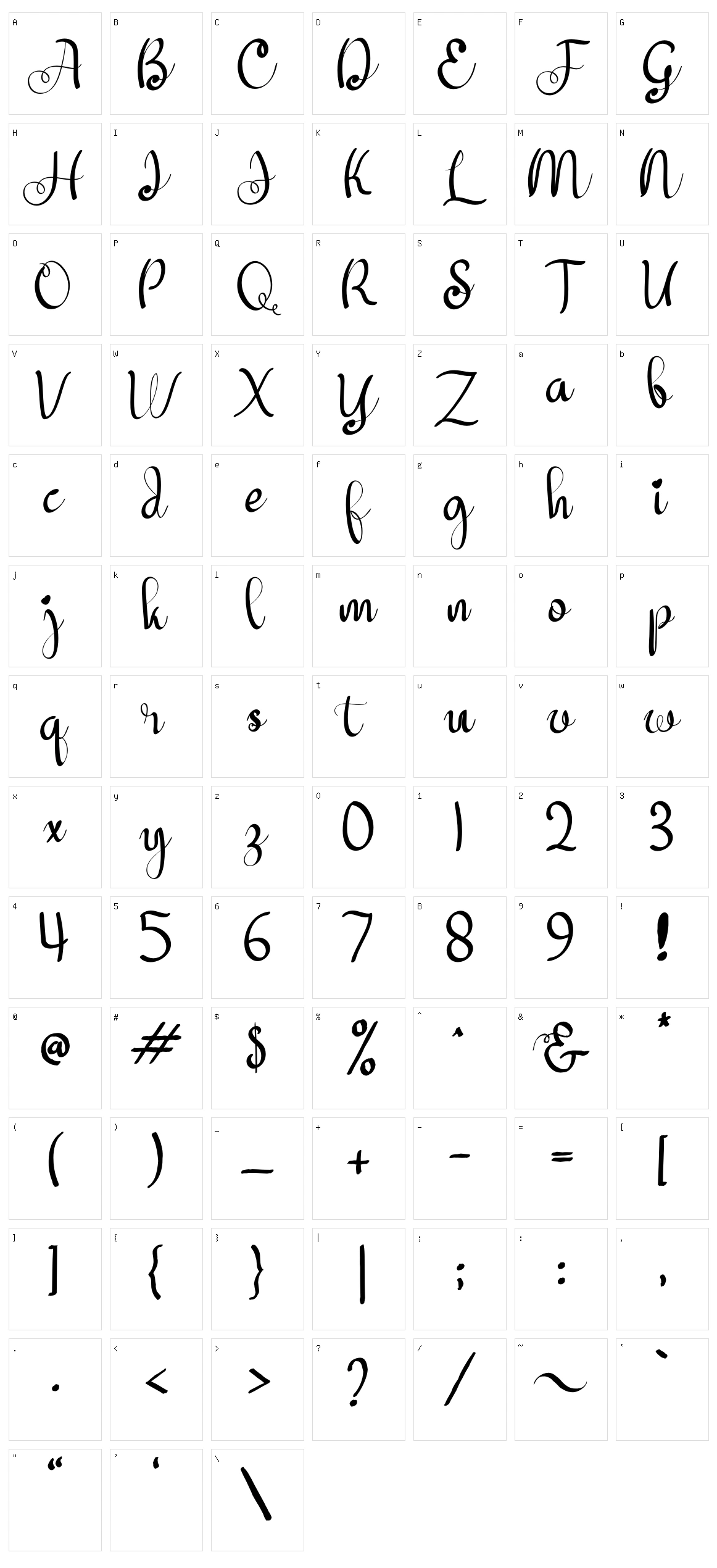
The free font Shopie is carefully designed by Nuryanto Dwi, showcasing a thoughtful balance of creativity and usability and falls under the Script font style. When you download the ZIP file, it contains only 63.89 KB of font files, making it lightweight and quick to download. Please review the license details below to understand permitted usage and distribution rights. If license information is not available, we recommend using this font for personal projects only or contacting the author directly for commercial usage permissions.